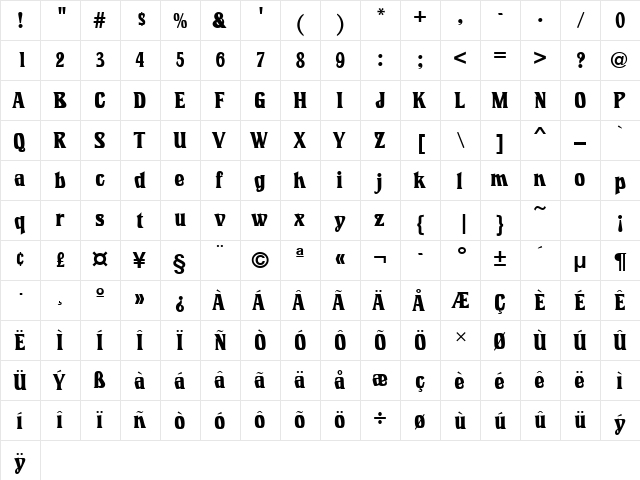
IntrospectURWTBolCon Regular Font Preview
IntrospectURWTBolCon Regular
Design Context for IntrospectURWTBolCon Typeface
IntrospectURWTBolCon takes a measured approach to typography — its balanced proportions and neutral character make it a reliable workhorse for both digital and print work.